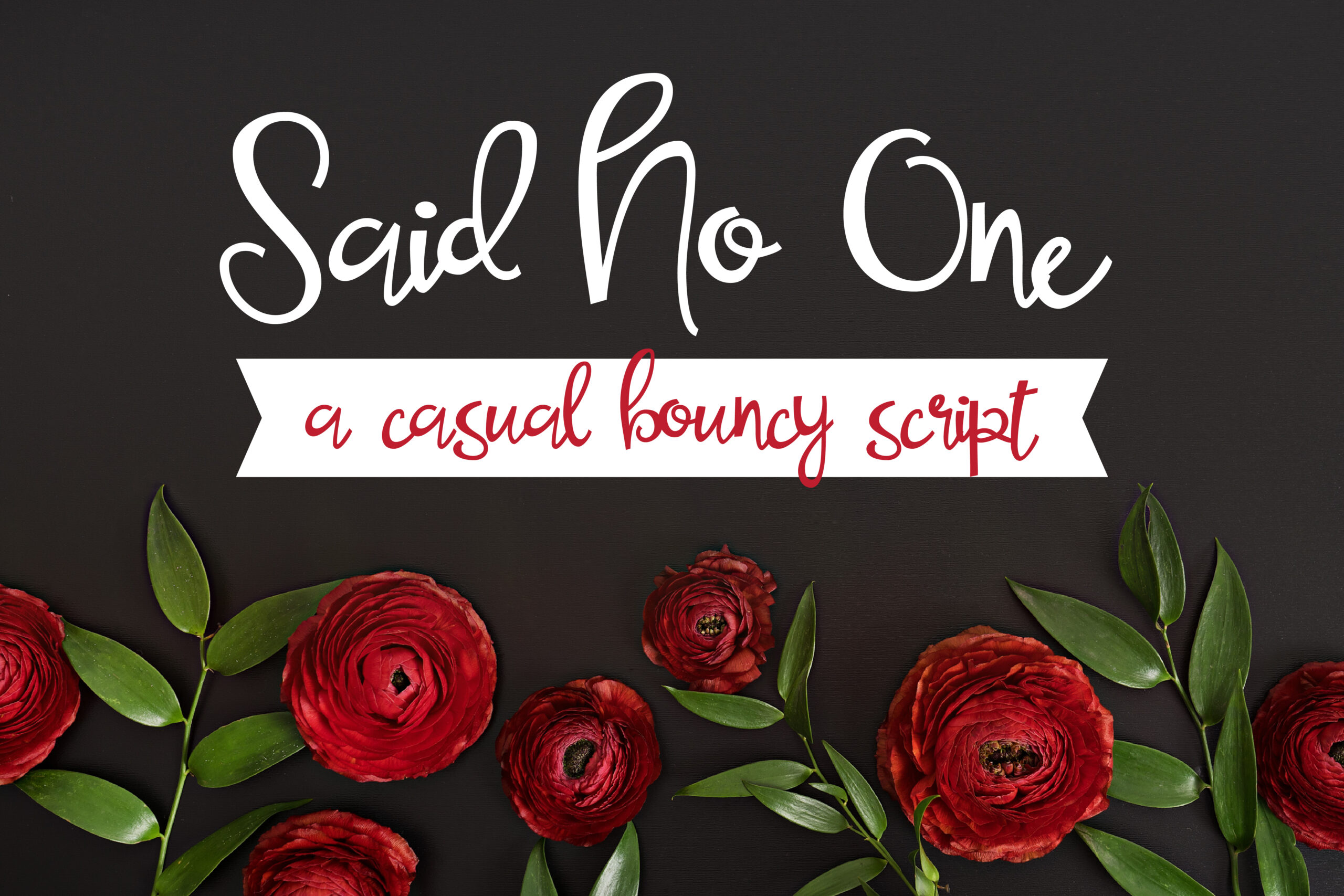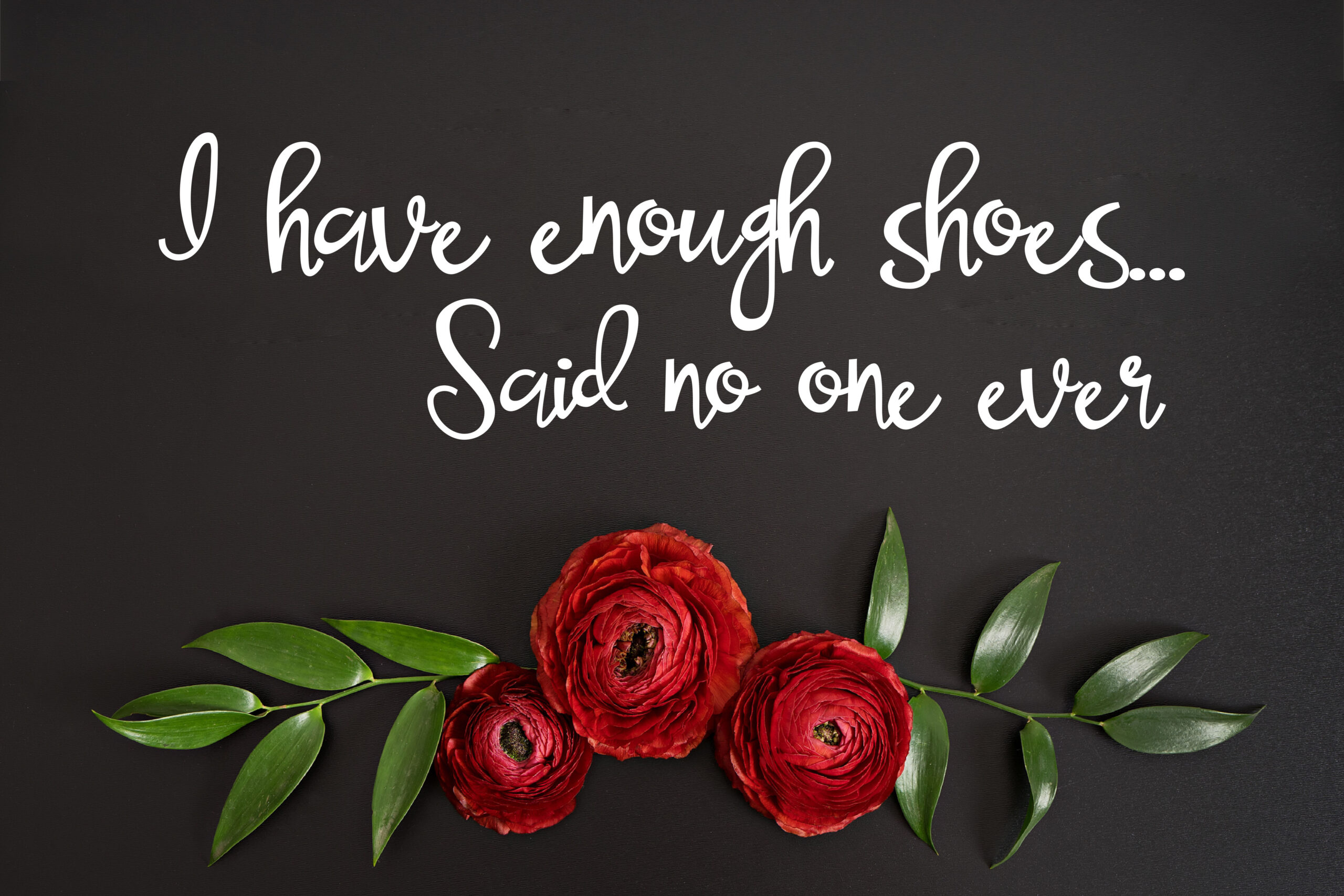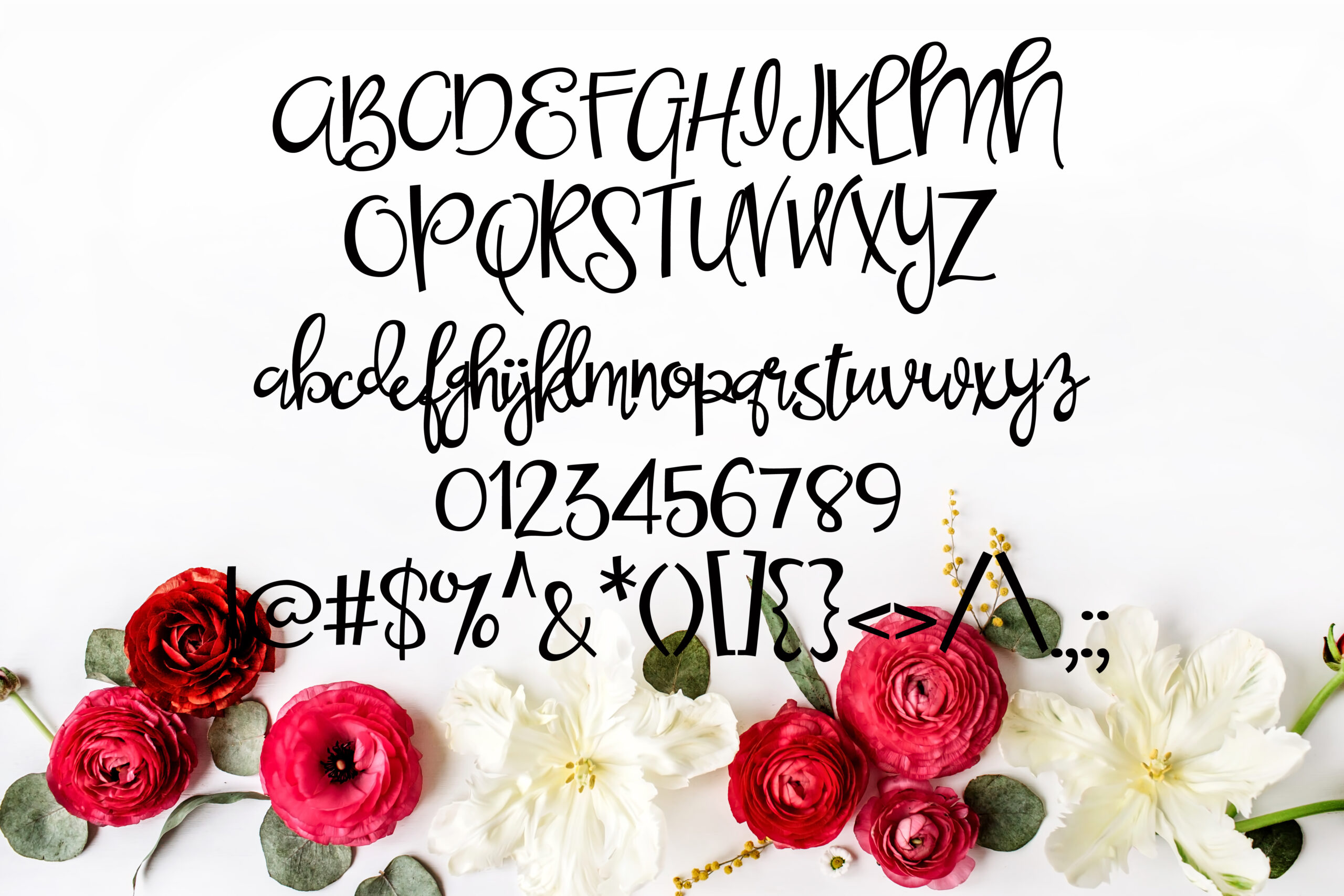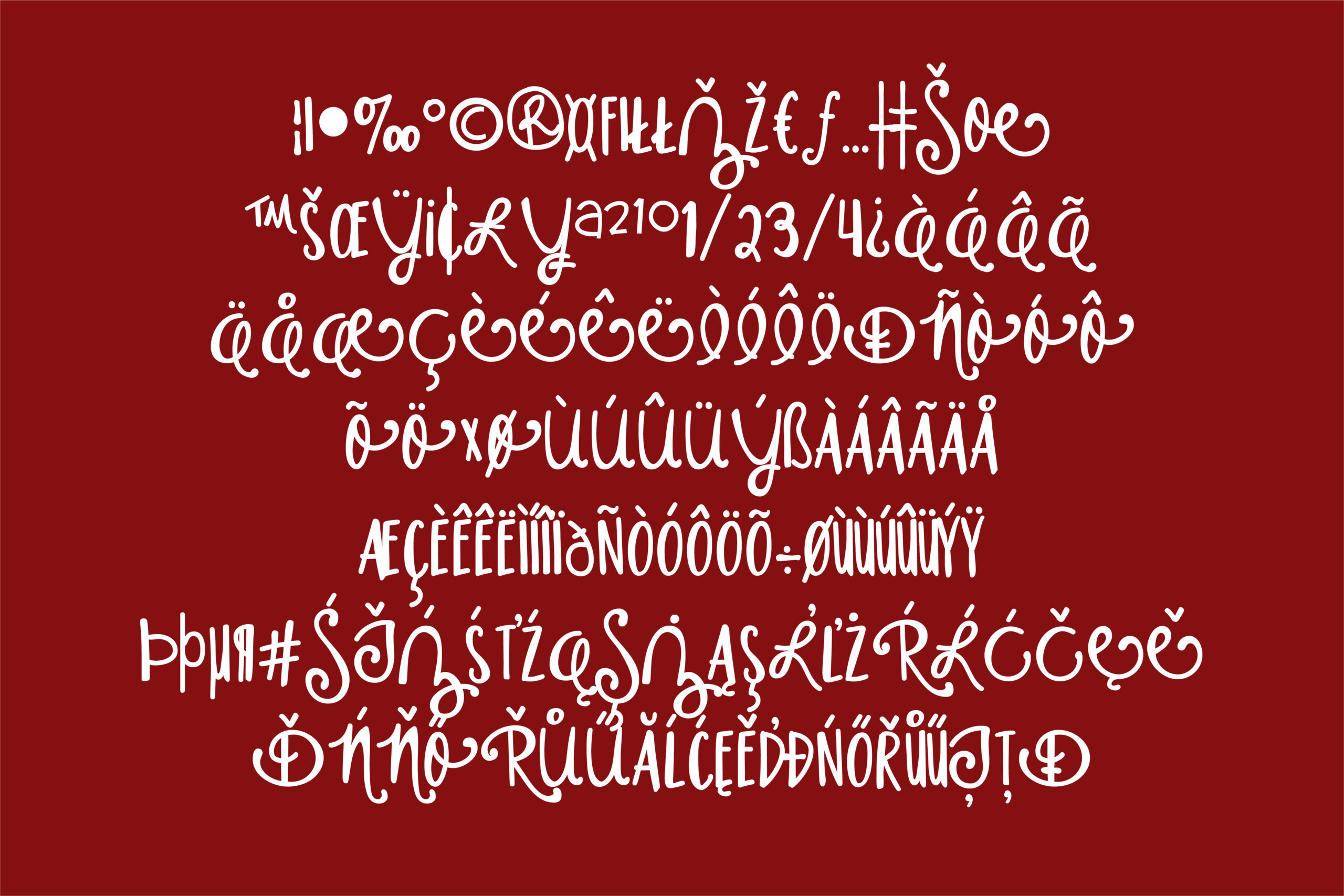
Said No One Font
About Said No One Font
Said No One is a fun and whimsical script with a bouncy baseline. This font was created and inked by hand and digitally cleaned so it can give your designs a clean yet genuine style.